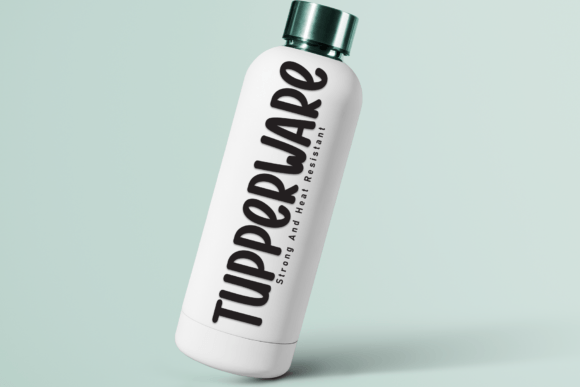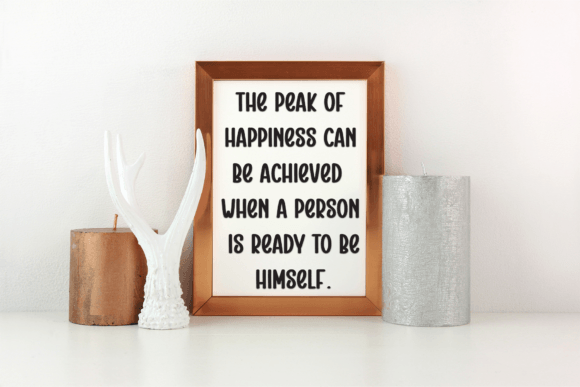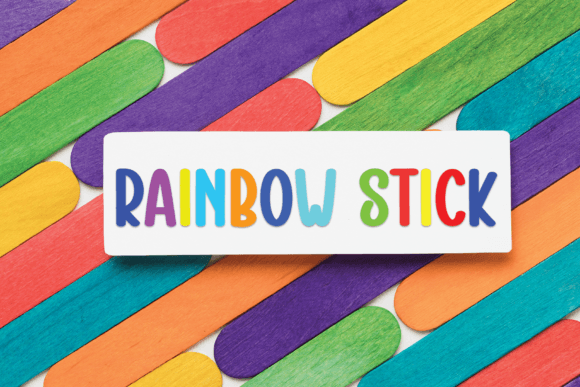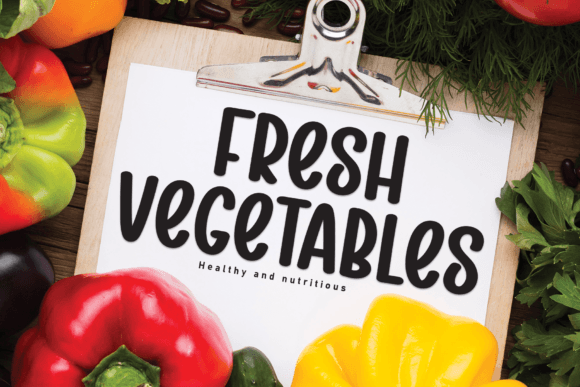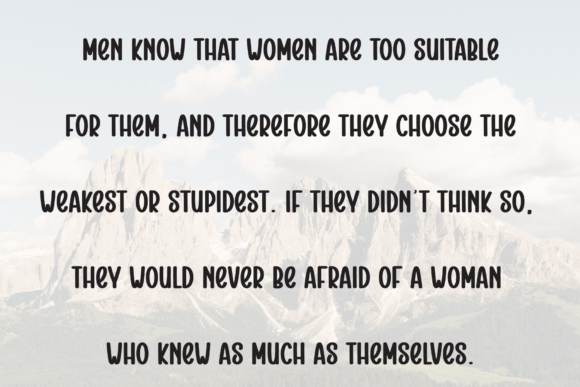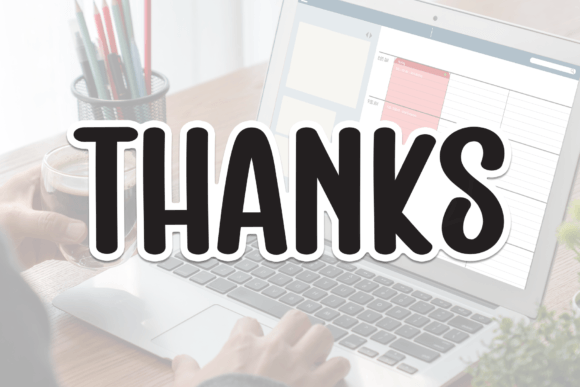
Discover the Charm of Digital Planner Font: Elevate Your Designs with a Sweet and Friendly Handwritten Style
Are you a designer or crafter looking for a font that can add a personal touch to your digital creations? Look no further than the Digital Planner Font, a sweet and friendly handwritten font that is sure to capture the hearts of your audience. With its natural and unique style, this font is incredibly versatile and can be used in a wide range of designs, from planners and journals to branding and marketing materials.
The Unique Style of Digital Planner Font
Digital Planner Font boasts a distinctive handwritten style that is both elegant and approachable. Its natural, fluid lines and subtle imperfections give it a human touch that is hard to replicate with traditional fonts. This font is perfect for designers and crafters who want to add a personal element to their work, making it feel more relatable and engaging to their audience.
One of the standout features of Digital Planner Font is its incredible versatility. Whether you’re creating a digital planner, a printable art piece, or a brand identity, this font can adapt to any design style. Its sweet and friendly tone makes it perfect for projects that require a more approachable and inviting feel, such as:
- Digital planners and journals
- Printable art and wall decor
The Benefits of Using Digital Planner Font
So why choose Digital Planner Font for your next design project? Here are just a few benefits of using this amazing font:
- Unique and eye-catching: Digital Planner Font is sure to grab attention with its distinctive style and natural charm.
- Versatile: This font can be used in a wide range of designs, from digital planners to branding materials.
- Easy to read: Despite its handwritten style, Digital Planner Font is incredibly legible, making it perfect for body text and headings.
- Customizable: With its wide range of uses and adaptability, you can experiment with different colors, sizes, and styles to make it your own.
Tips for Using Digital Planner Font Effectively
To get the most out of Digital Planner Font, here are a few tips to keep in mind:
- Pair it with complementary fonts: Combine Digital Planner Font with other fonts to create a unique and visually appealing typography.
- Experiment with colors: Try out different colors and gradients to add depth and interest to your design.
- Play with sizes: Use Digital Planner Font in a range of sizes to create visual hierarchy and emphasize important information.
- Add texture and patterns: Mix and match textures and patterns to give your design a more organic and handmade feel.
Digital Planner Font is a sweet and friendly handwritten font that is sure to bring a touch of personality to your design projects. With its natural and unique style, incredible versatility, and ease of use, this font is perfect for designers and crafters looking to create engaging and memorable digital creations. So why wait? Unlock your creativity and explore the endless possibilities of Digital Planner Font today!
The only limit is your imagination! Whether you’re a seasoned designer or a crafty DIY enthusiast, Digital Planner Font is the perfect tool to help you bring your ideas to life. So go ahead, get creative, and see what amazing designs you can come up with using this incredible font!